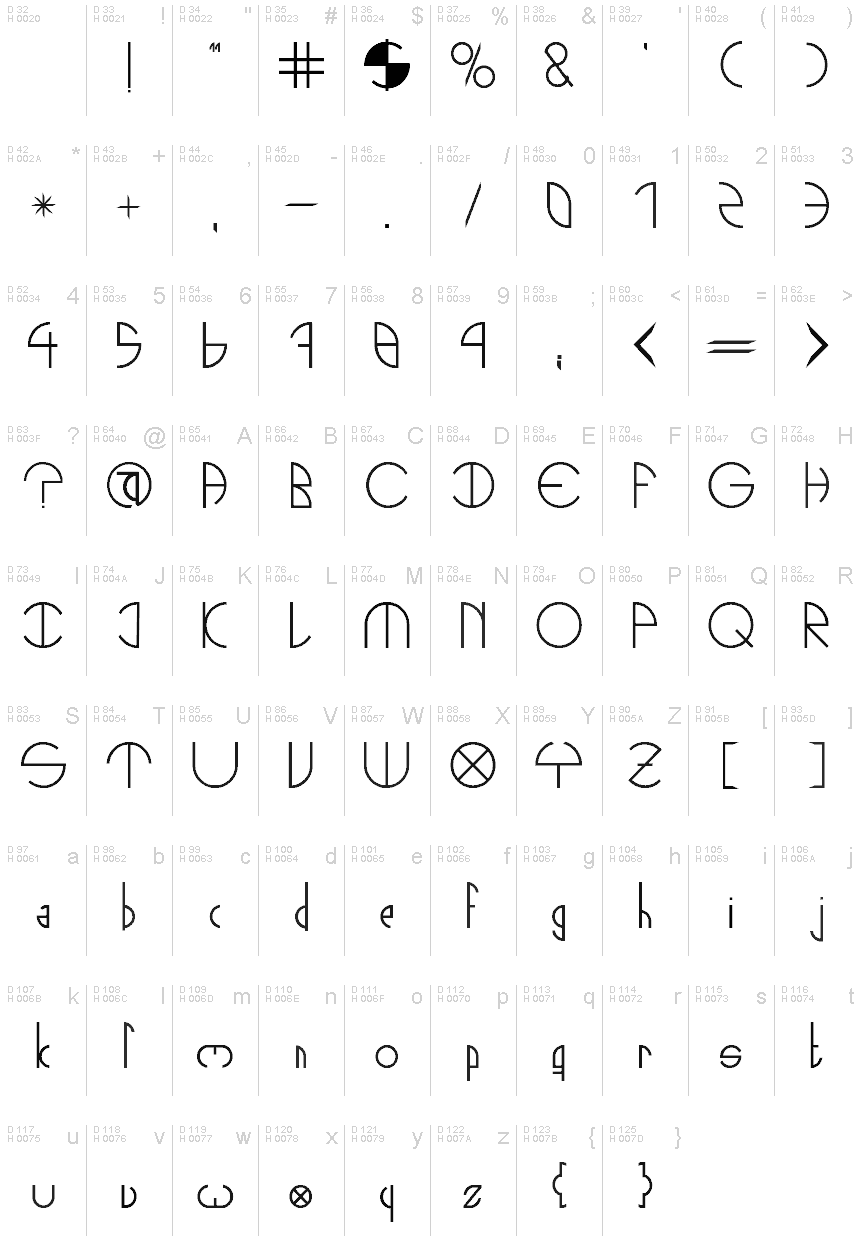
Night
Night's Out is a captivating display font that exudes a sense of futuristic elegance. Designed by Jorge Moreno, this light-weighted typeface boasts striking visual features, including sleek, elongated letterforms and a smooth, flowing aesthetic. The font's distinct style lends itself well to a range of design applications, from modern branding and advertising to eye-catching digital interfaces and editorial layouts.
Its delicate yet impactful presence makes "Night's Out" a versatile choice for projects seeking to convey a sophisticated, forward-thinking aesthetic.